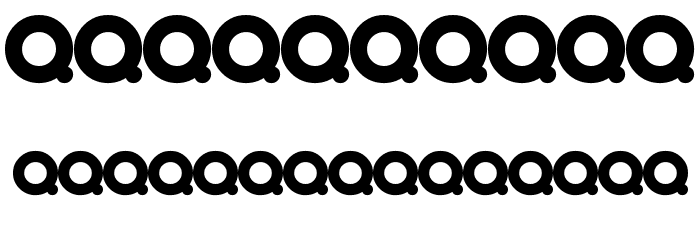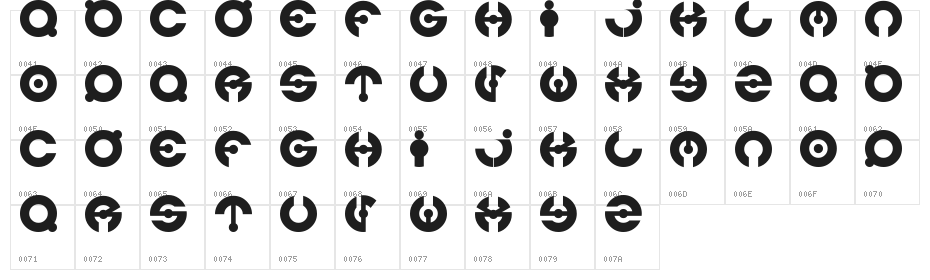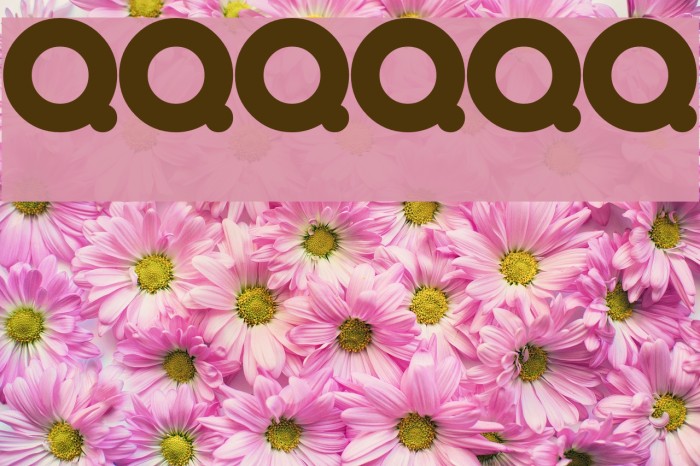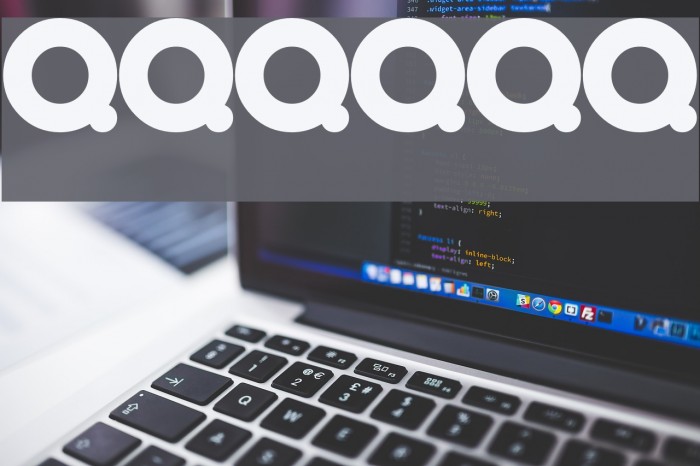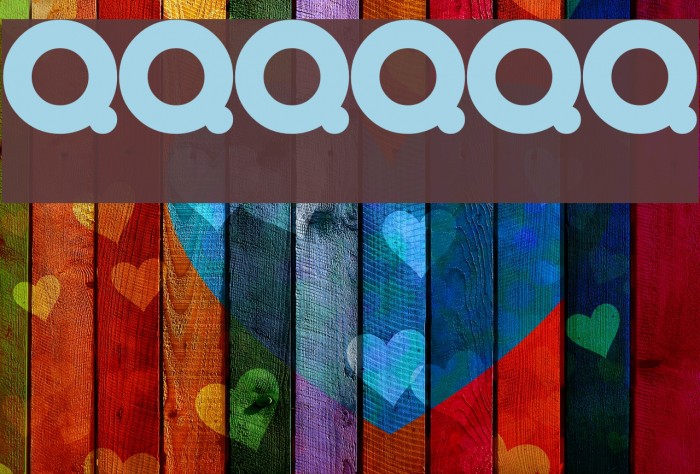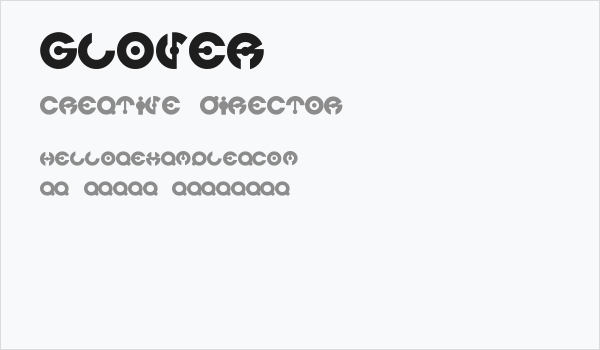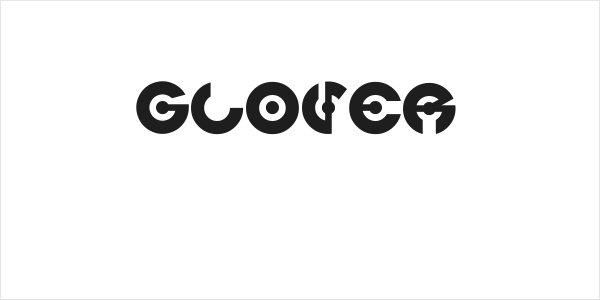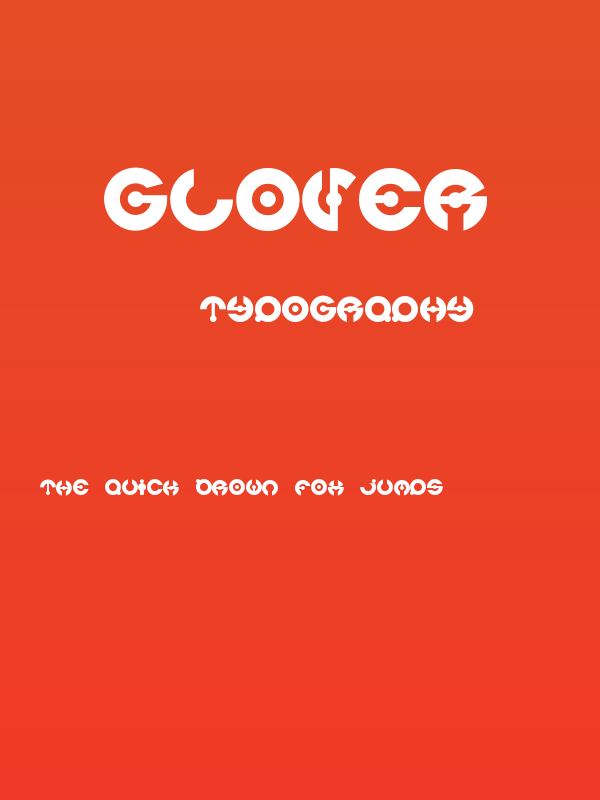
glover Font
glover Description
This font features a bold and playful design with a consistent circular motif. Each character is formed with a thick, uniform stroke that creates a strong visual impact. The rounded shapes and uniform thickness give it a modern and approachable feel, making it suitable for a variety of creative applications. Its unique style is characterized by its boldness and simplicity, which can capture attention effectively. The font's design is consistent across all characters, maintaining a cohesive look that is both eye-catching and easy to read. Its distinct style makes it ideal for projects that require a strong visual presence.
| Proposed Projects | Ideal for branding, logos, headlines, and playful graphic design projects. |